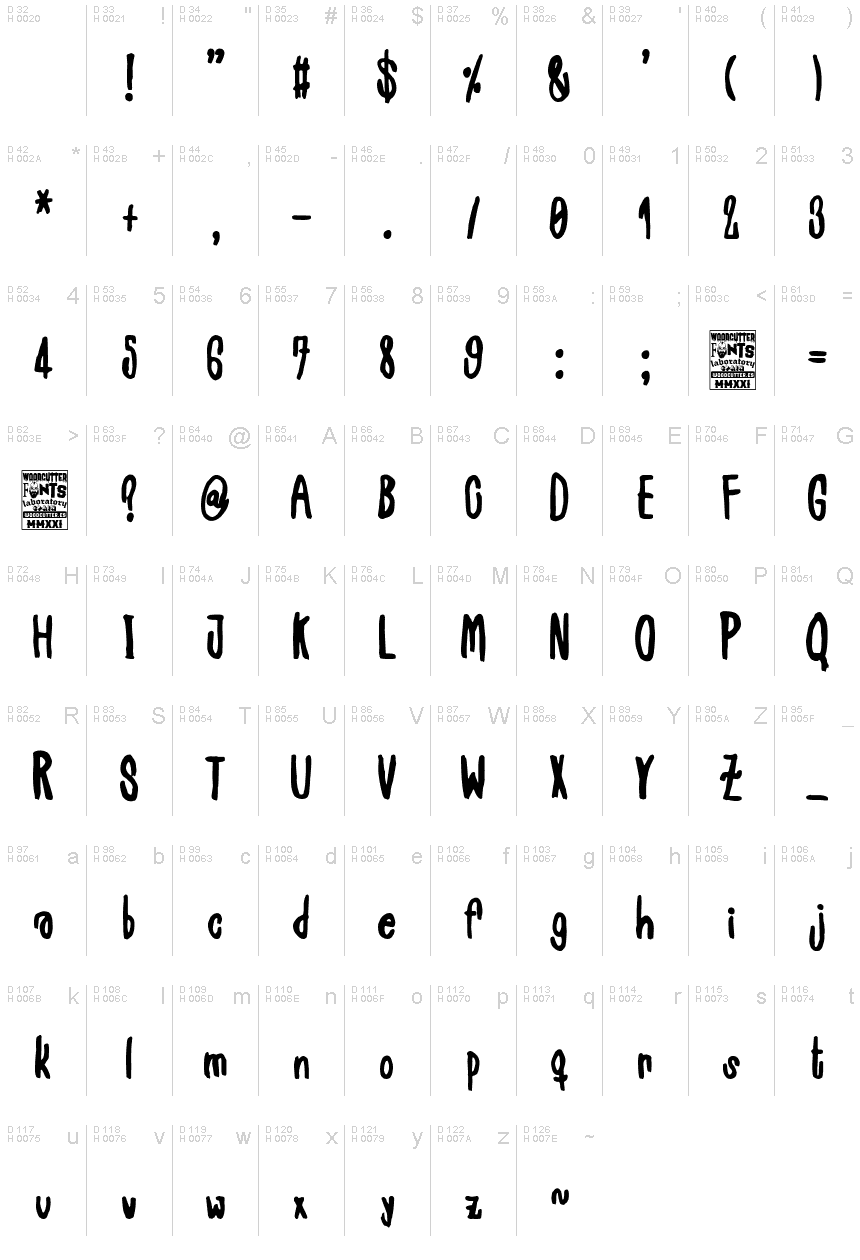
Judías Verdes
Judías Verdes is a charming semi-bold handwritten font by Woodcutter Manero. The condensed width adds a touch of elegance to any project, making it perfect for invitations, logos, and branding materials. With its playful curves and unique lettering style, Judías Verdes brings personality to your designs. This versatile typeface is suitable for a range of projects including food packaging, fashion blogs, and greeting cards. Inject some personality into your next project with Judías Verdes - the perfect choice for those looking for a handwritten font with character!